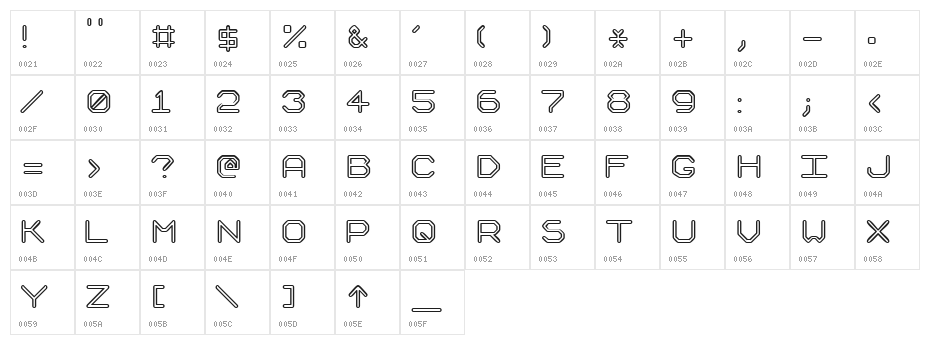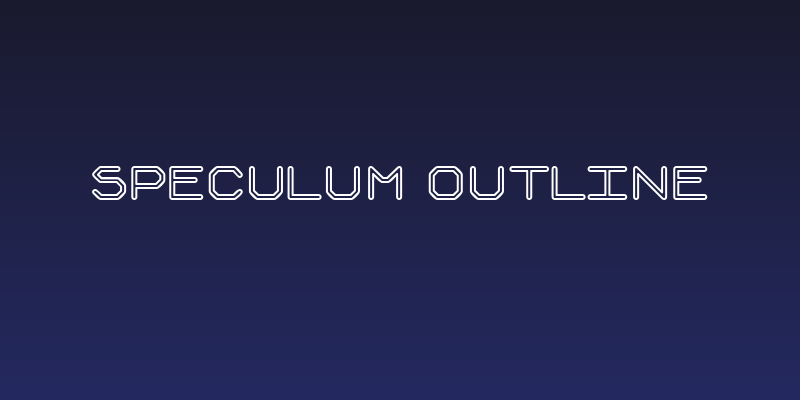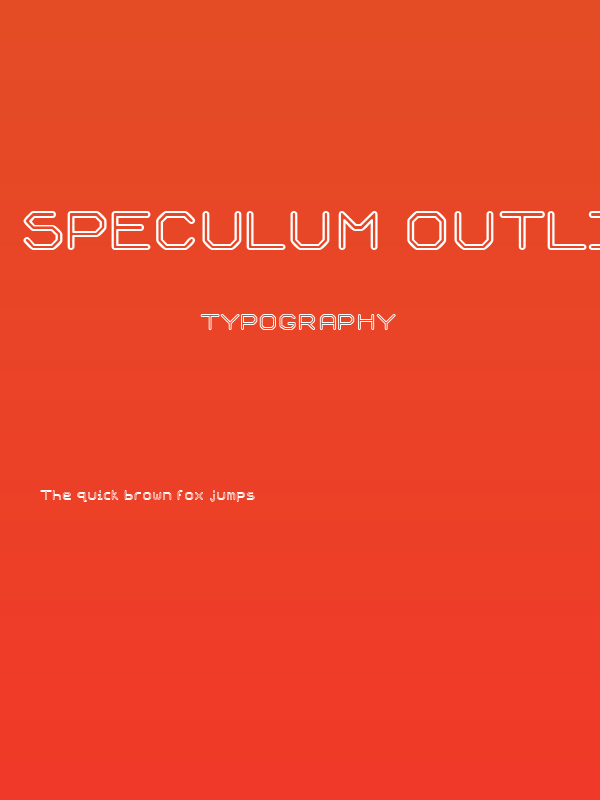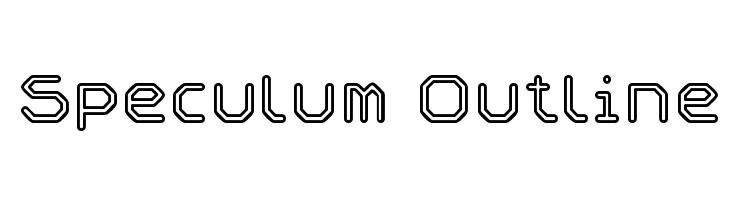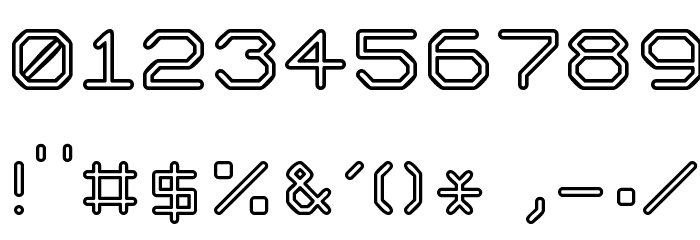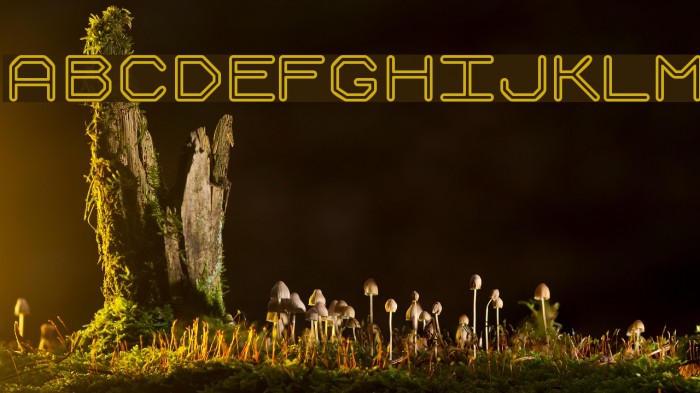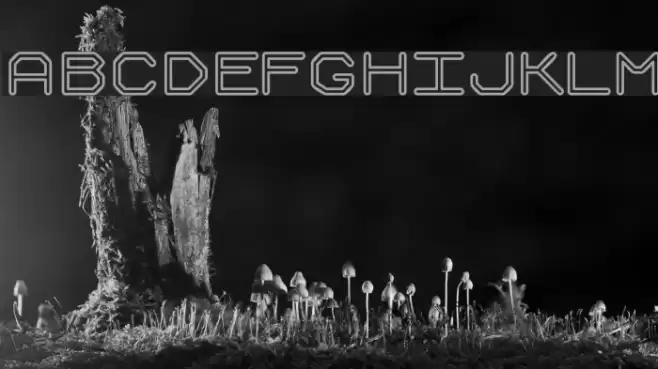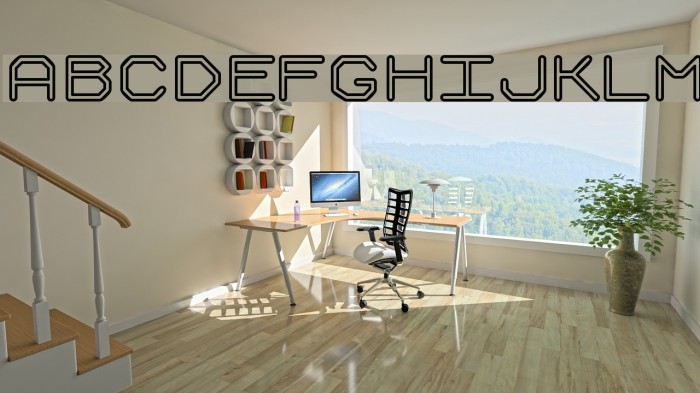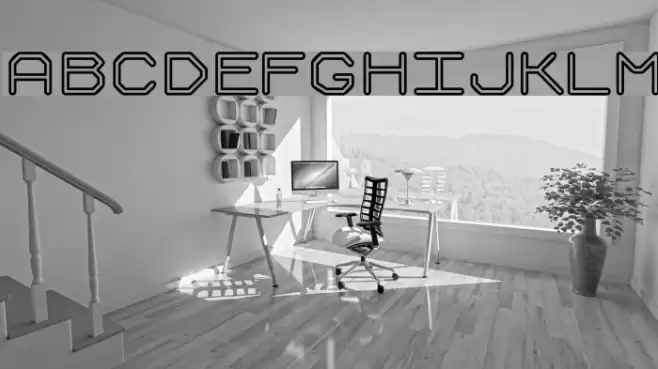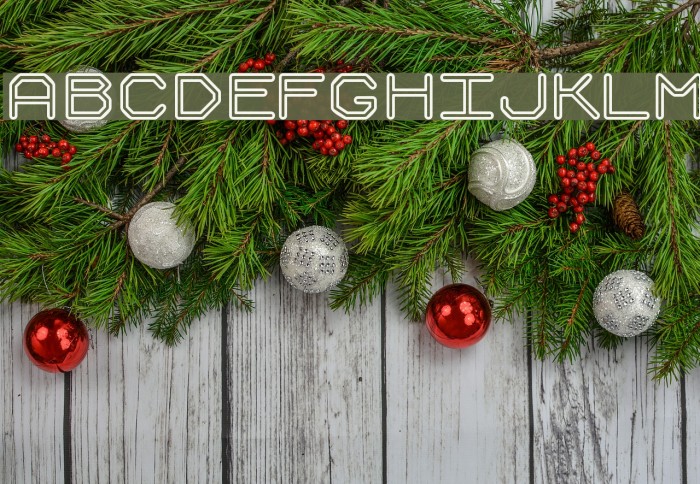
Speculum Outline Font
Speculum Outline Description
This font features a unique outline style that gives it a modern and futuristic appearance. The characters are geometric and angular, with consistent line thickness throughout. The uppercase and lowercase letters maintain a uniform height, creating a cohesive look. The numerals and special characters follow the same design principles, ensuring harmony across all elements. The font's clean lines and open spaces make it highly legible, even at smaller sizes. Its distinctive outline design adds a layer of sophistication and can be used to create eye-catching text.
| Proposed Projects | Ideal for branding, logos, posters, and digital media where a modern and futuristic look is desired. |